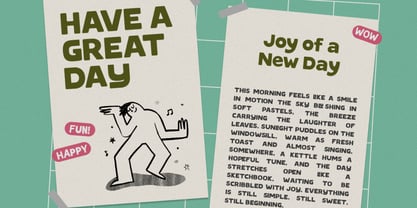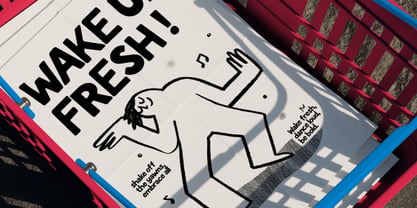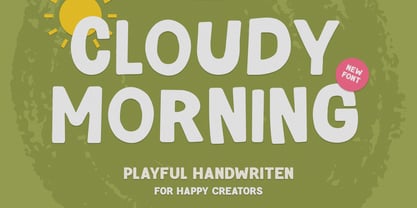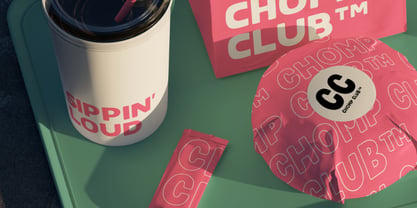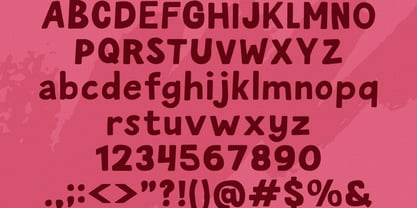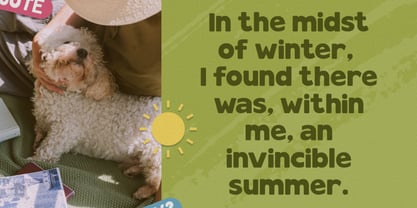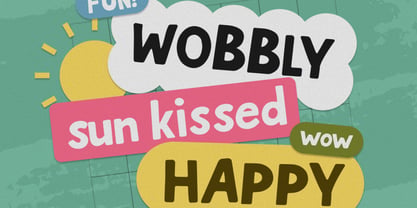
Cloudy Morning
The Cloudy Morning Font Family was designed by and published by Vadova Std. Cloudy Morning contains 1 styles. More about this family
Cloudy Morning is a cheerful handwritten font designed to brighten up your creative projects. With bold, rounded strokes and a friendly, bouncy rhythm, this typeface feels like a sunny smile on a cloudy day. Inspired by children’s doodles and cozy mornings, it brings warmth and whimsy to your designs while staying legible and versatile. This font includes uppercase and lowercase letters, numbers, punctuation, and multilingual support. Perfect for digital and print use, Cloudy Morning is ideal for social media posts, greeting cards, stickers, kids' branding, quotes, packaging, and more. It installs easily and is compatible with Adobe Illustrator, Photoshop, InDesign, Canva, Procreate, and all standard design software.